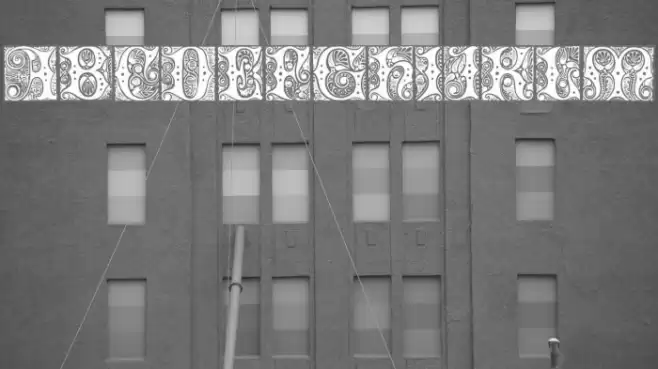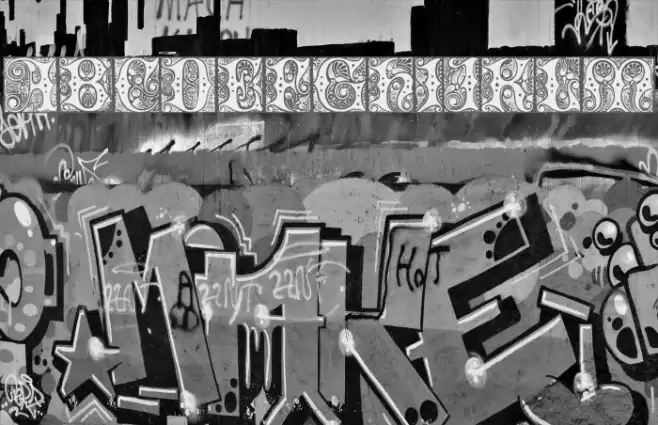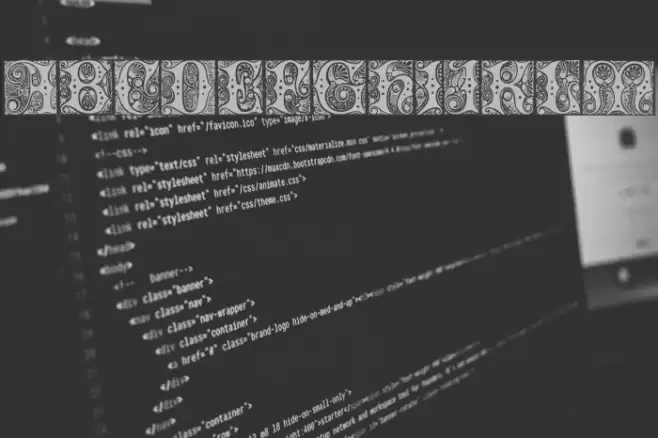
Cheshire Initials Font
Cheshire Initials Description
This font is a highly decorative and intricate design, featuring elaborate swirls and patterns within each letter. The uppercase letters are adorned with ornate embellishments, giving them a luxurious and artistic appearance. The style is reminiscent of Victorian or Art Nouveau influences, with a strong emphasis on aesthetics and visual appeal. Each character is uniquely crafted, making it ideal for projects that require a touch of elegance and sophistication. The font's complexity and detail make it stand out, perfect for creating eye-catching headlines or artistic designs.
An ornate and decorative font with intricate patterns and swirls from Crazy fonts.
- Proposed Projects: Ideal for wedding invitations, luxury branding, artistic posters, and decorative headings.
- Overall Style: Vintage